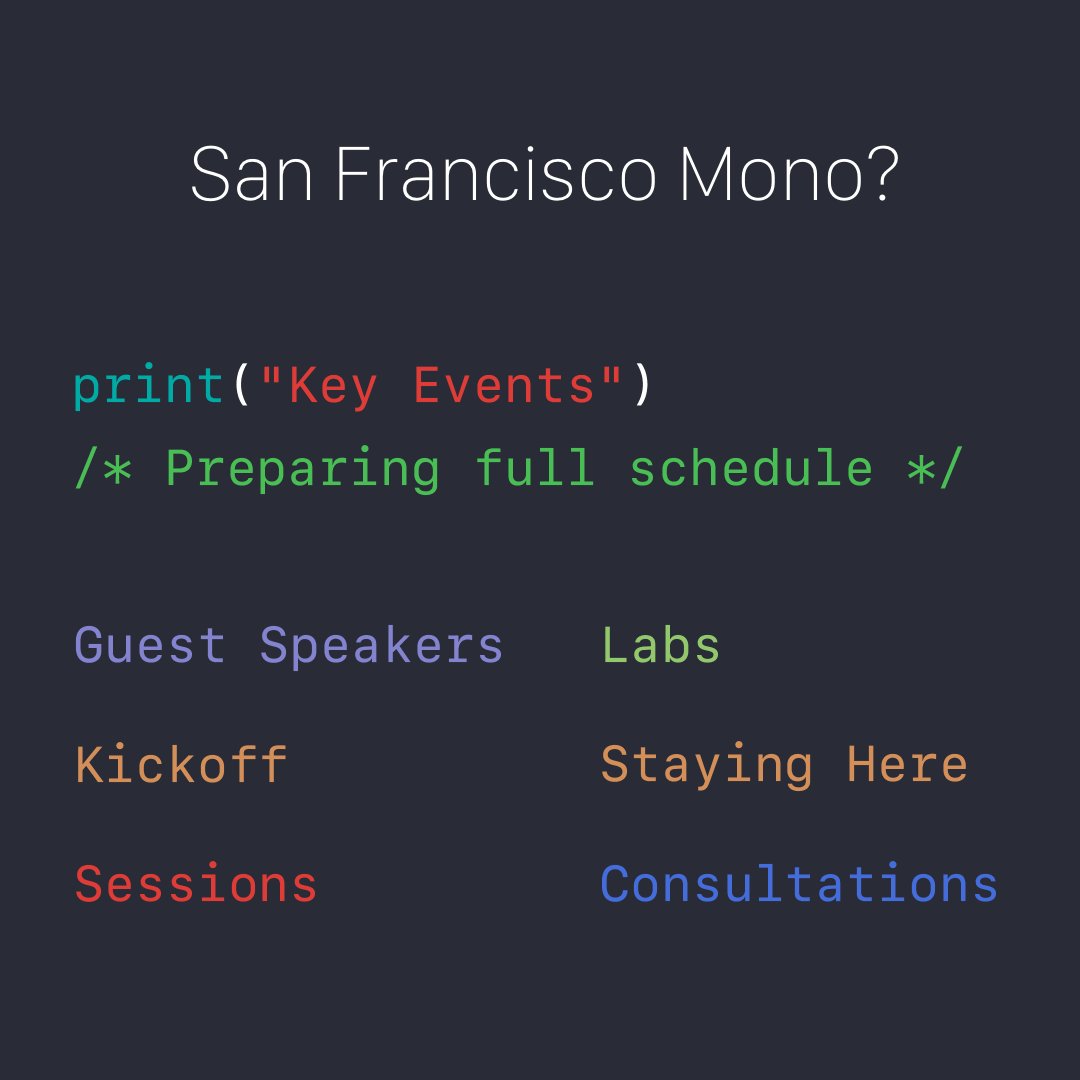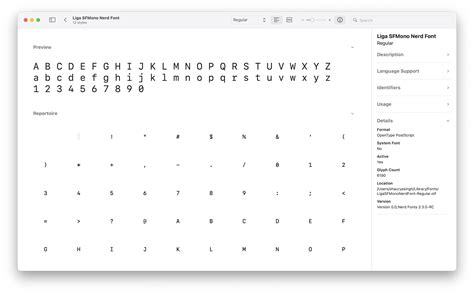
Sf Mono Nerd Font. Monospaced variant of san francisco. Its a great, easy on the eyes combination in text editors sadly.
Web nerd fonts is a project that patches developer targeted fonts with a high number of glyphs (icons). Includes powerline, powerlineextra and octicons. Monospaced variant of san francisco. Apple's sf mono font patched with the nerd fonts patcher. Works on macos, linux and windows. Web i love apples sf mono font (along with sf pro as a proportional font). Works on macos, linux and windows. Web nerd fonts is a website that aggregates, collects, and patches fonts with extra icons from popular sets such as font awesome,. Apple's sf mono font patched with the nerd fonts patcher. Its a great, easy on the eyes combination in text editors sadly.
Web nerd fonts is a project that patches developer targeted fonts with a high number of glyphs (icons). Apple's sf mono font patched with the nerd fonts patcher. Includes powerline, powerlineextra and octicons. Web nerd fonts is a project that patches developer targeted fonts with a high number of glyphs (icons). Web i love apples sf mono font (along with sf pro as a proportional font). Works on macos, linux and windows. Web nerd fonts is a website that aggregates, collects, and patches fonts with extra icons from popular sets such as font awesome,. Monospaced variant of san francisco. Works on macos, linux and windows. Apple's sf mono font patched with the nerd fonts patcher. Its a great, easy on the eyes combination in text editors sadly.